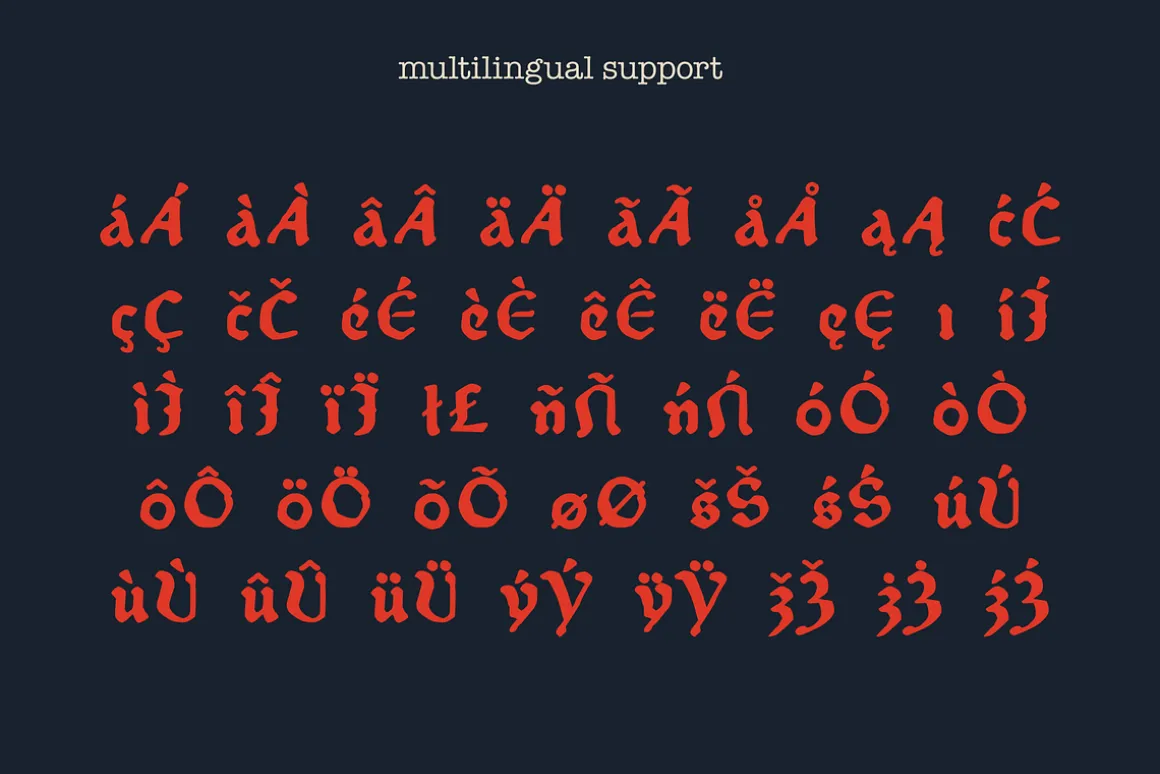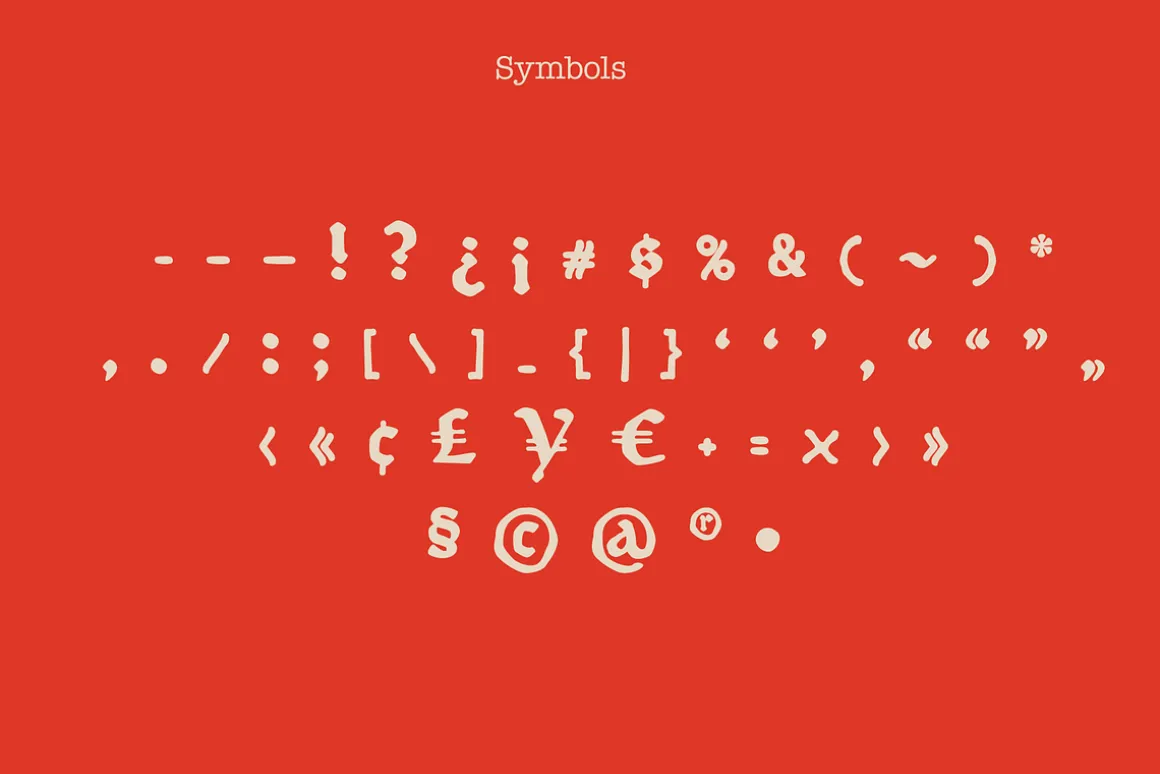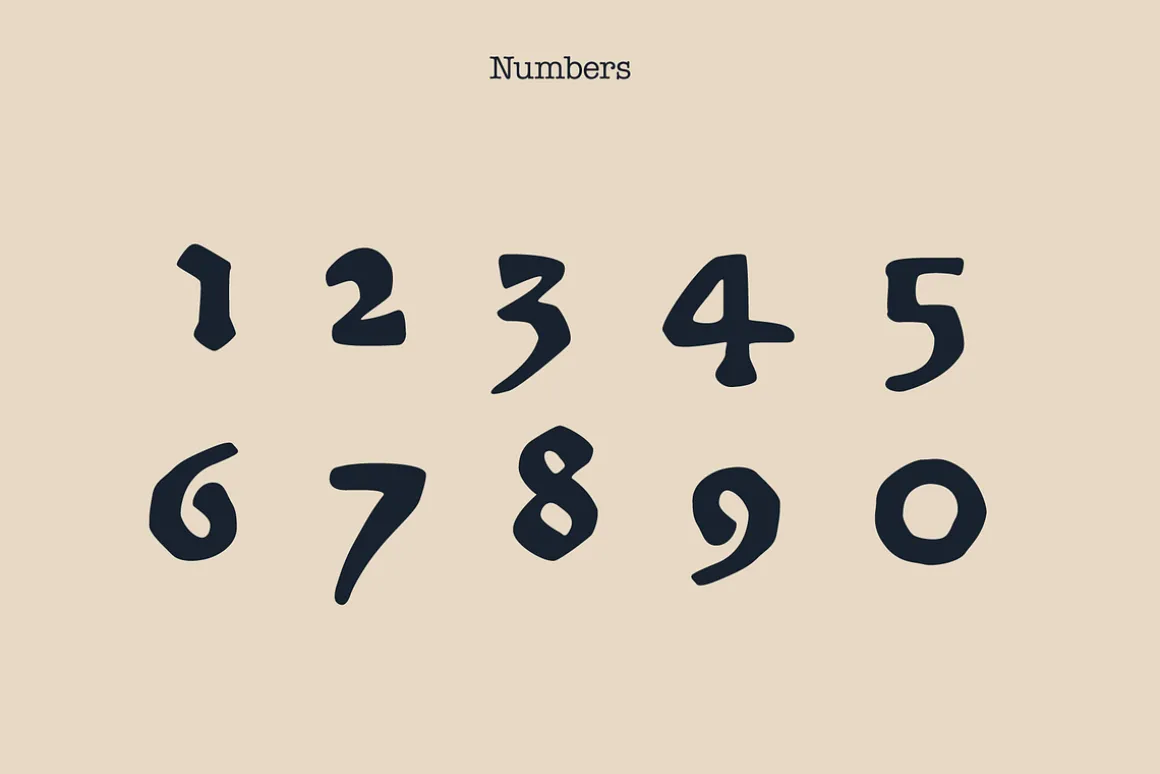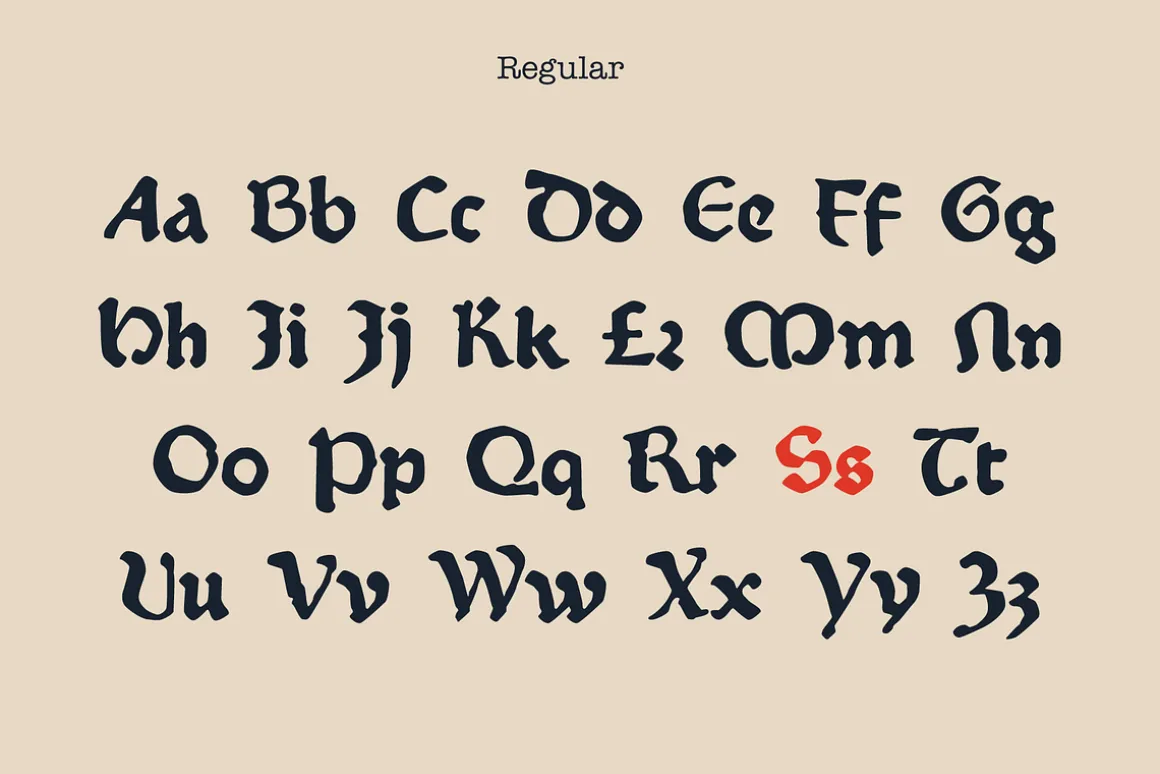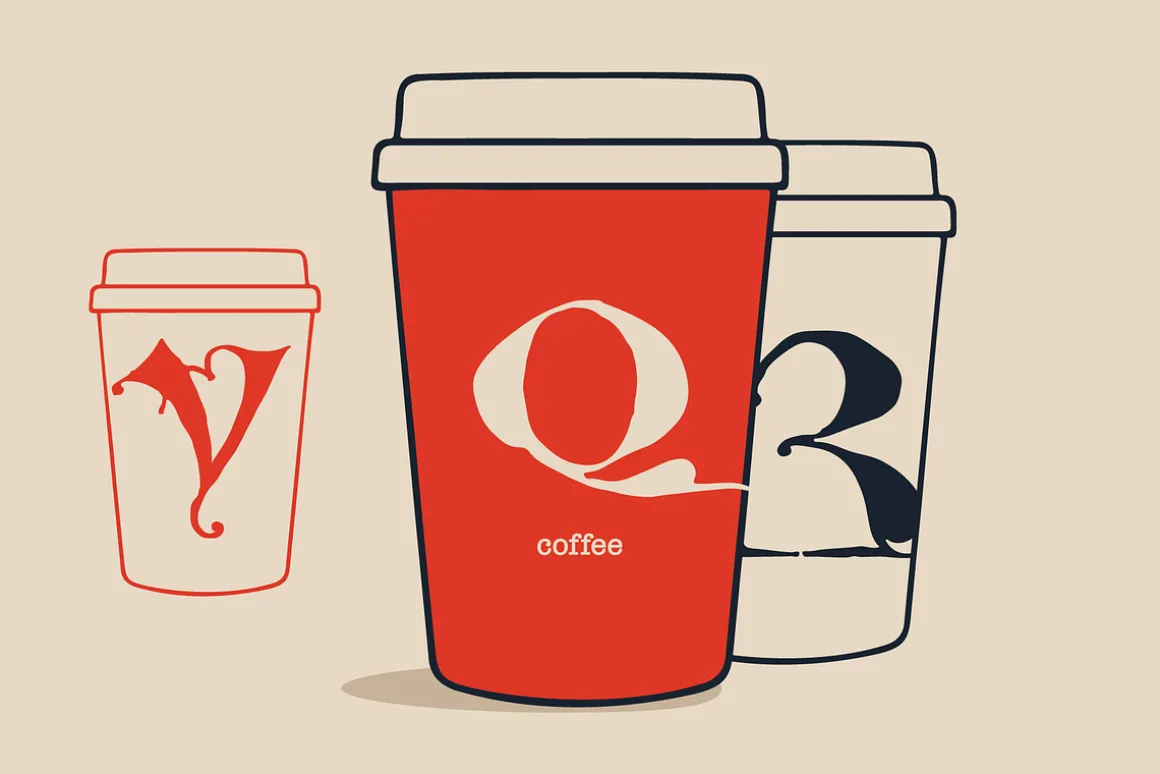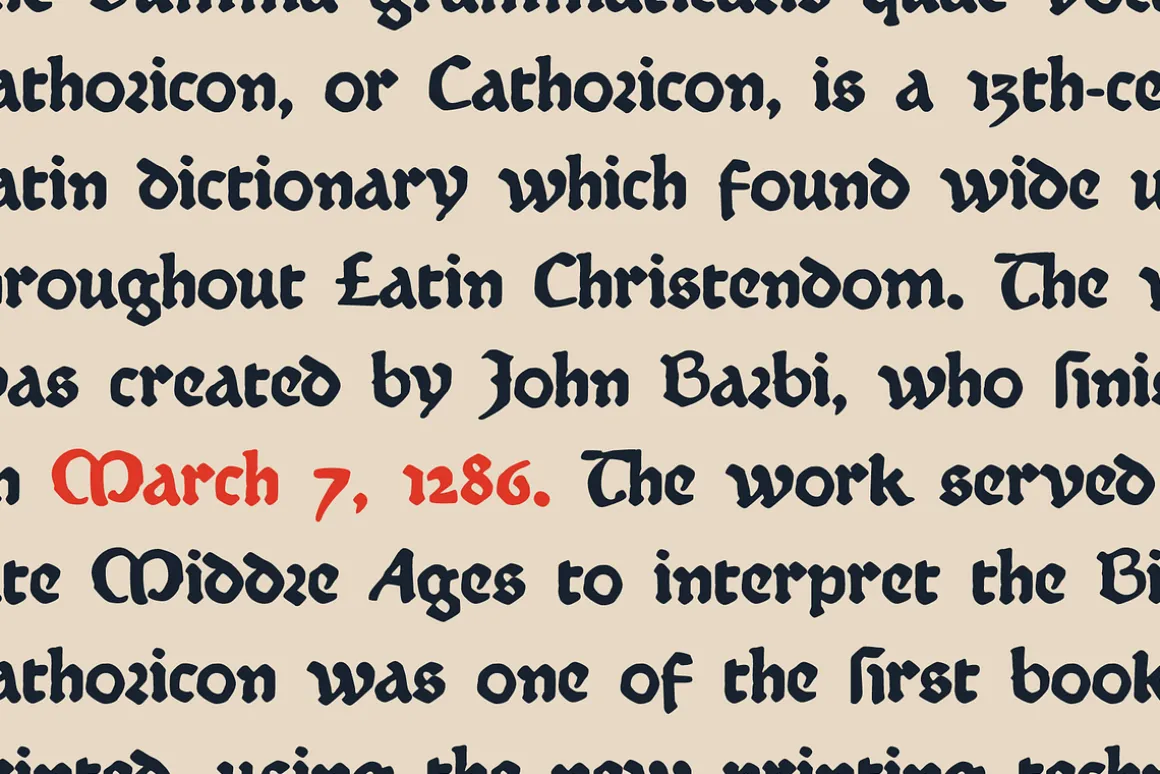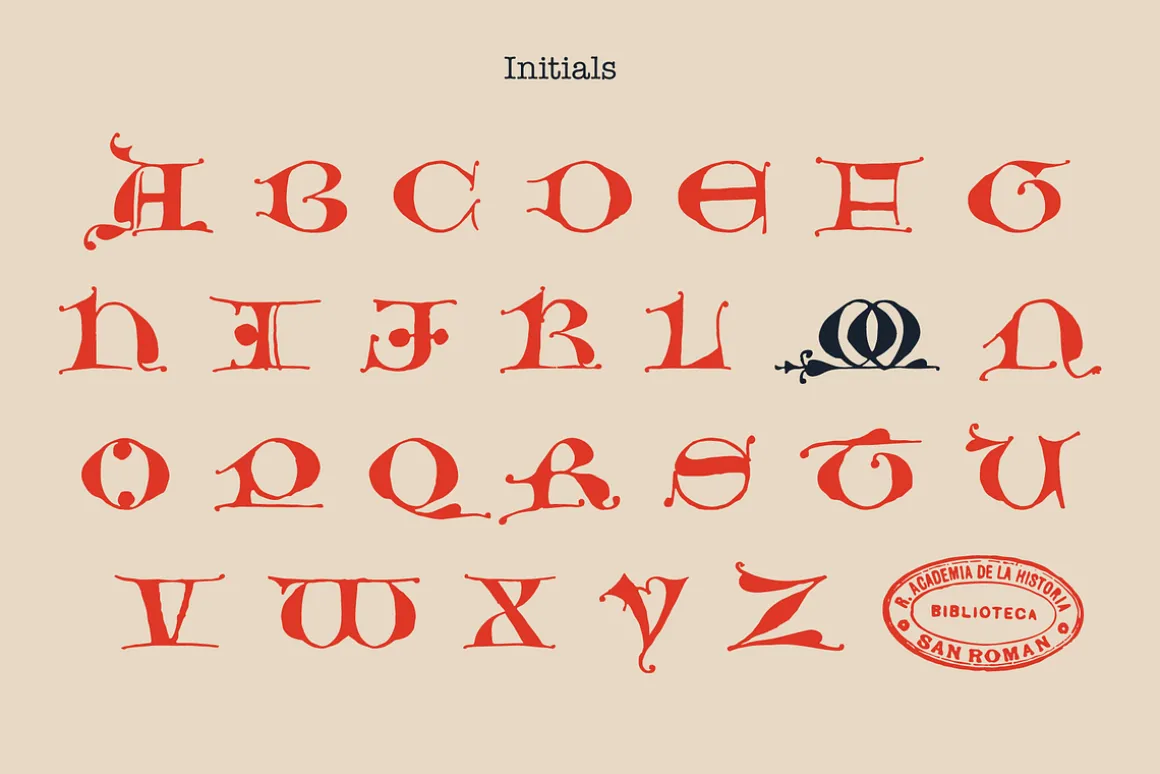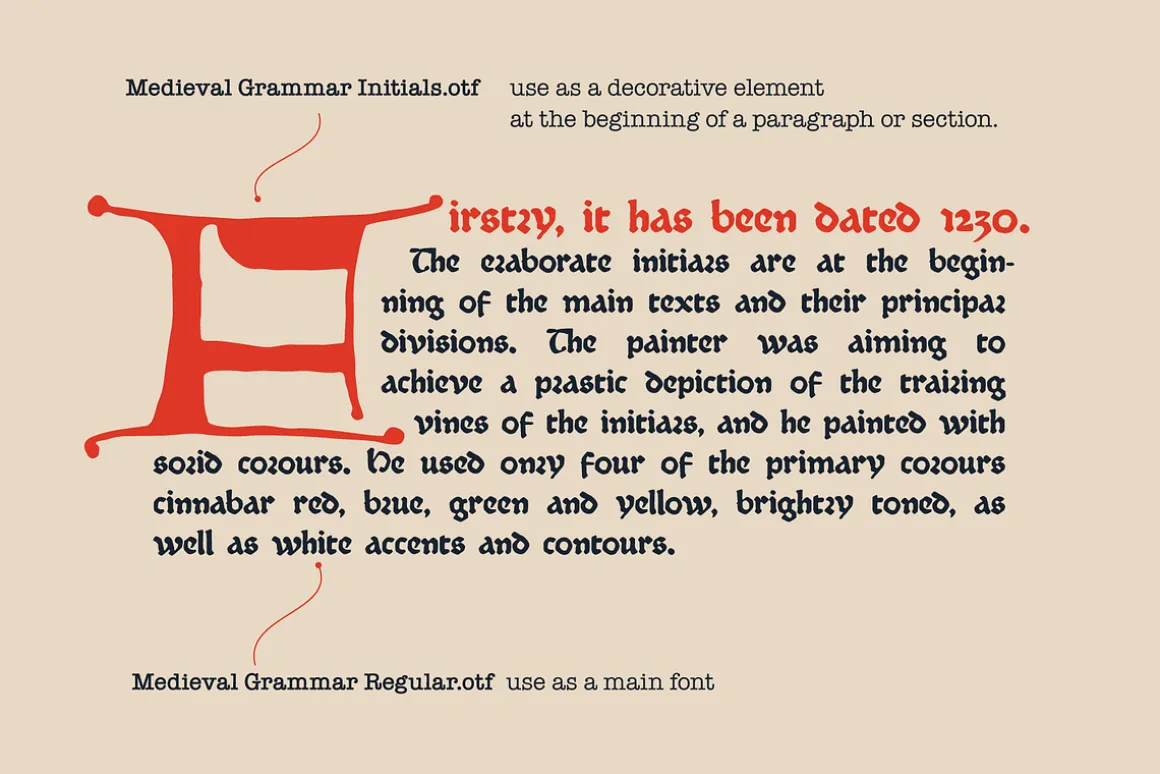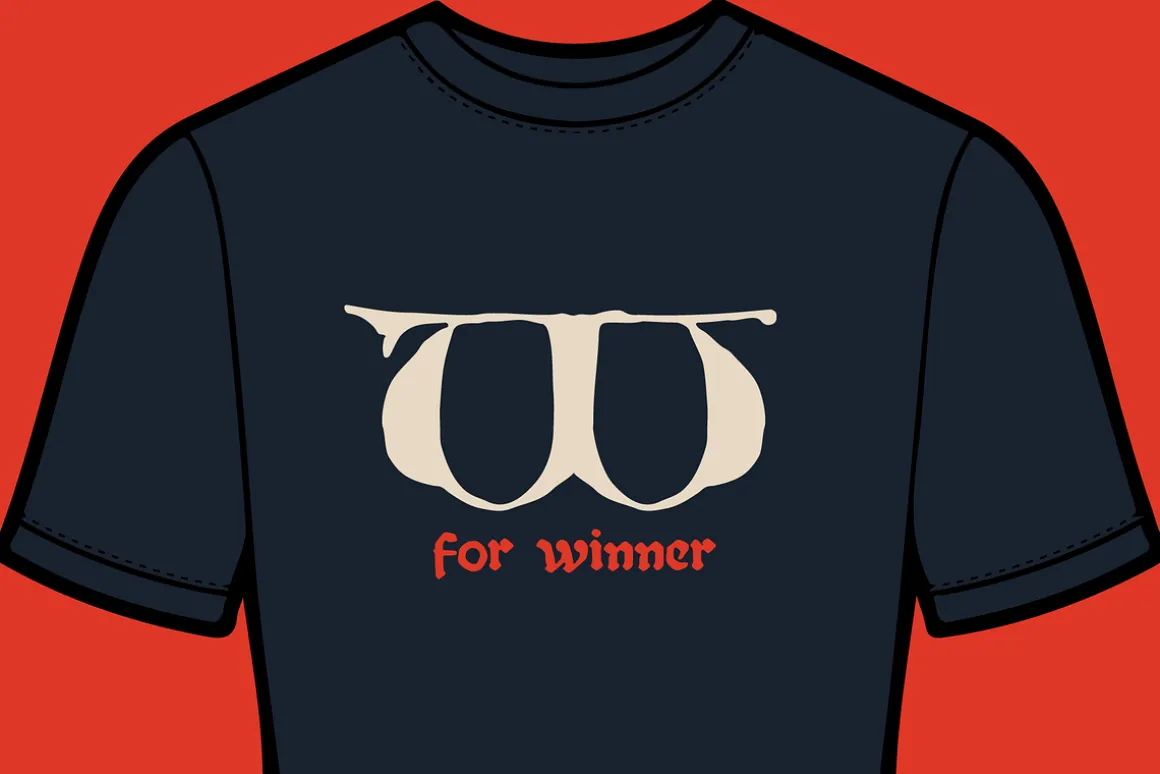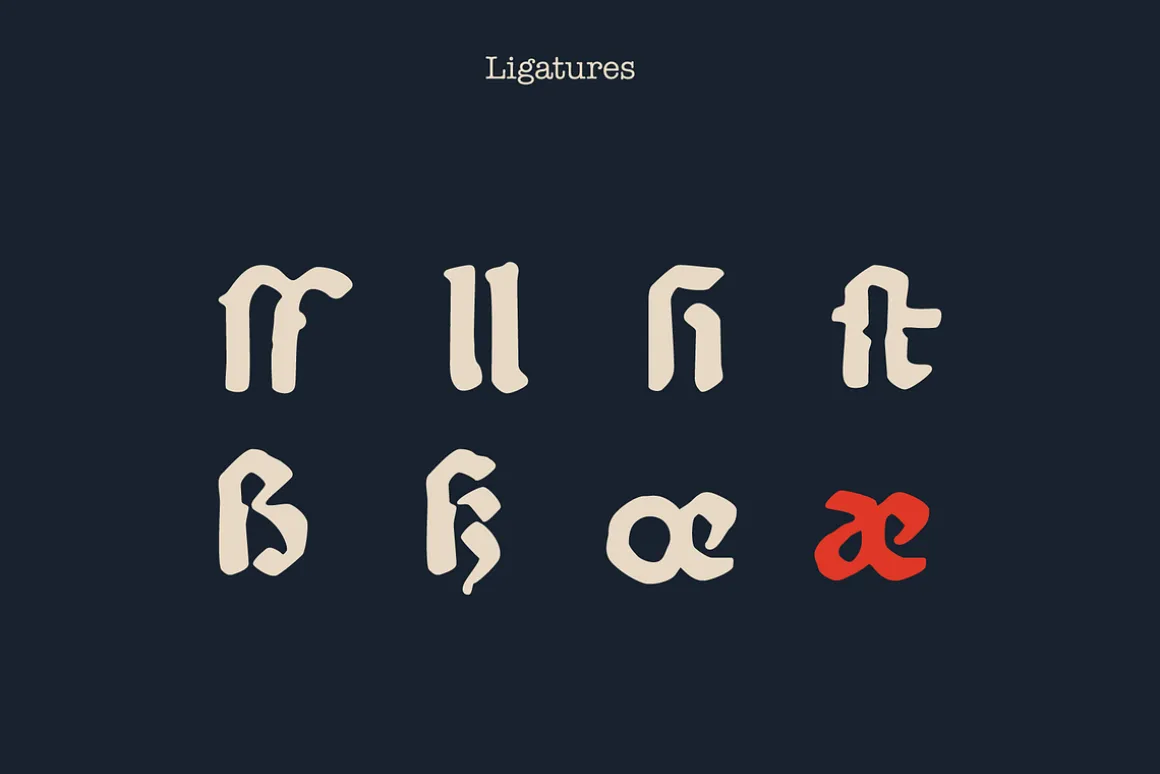
This font family based on Medieval book called Summa Grammaticalis, better known as the Catholicon by Johannes Balbus. It’s holdings by Spanish Royal Academy of History. I manually redesign initials and regular style fonts from this folio. Also, I’ve added some modern symbols.
I’m happy to present to you my new font family. Blumen font family has Initials and Regular styles. It’s all you need to precisely imitate medieval style text. Use Initials style as a decorative element at the beginning of a paragraph or section, other part of the paragraph should be in Regular style.